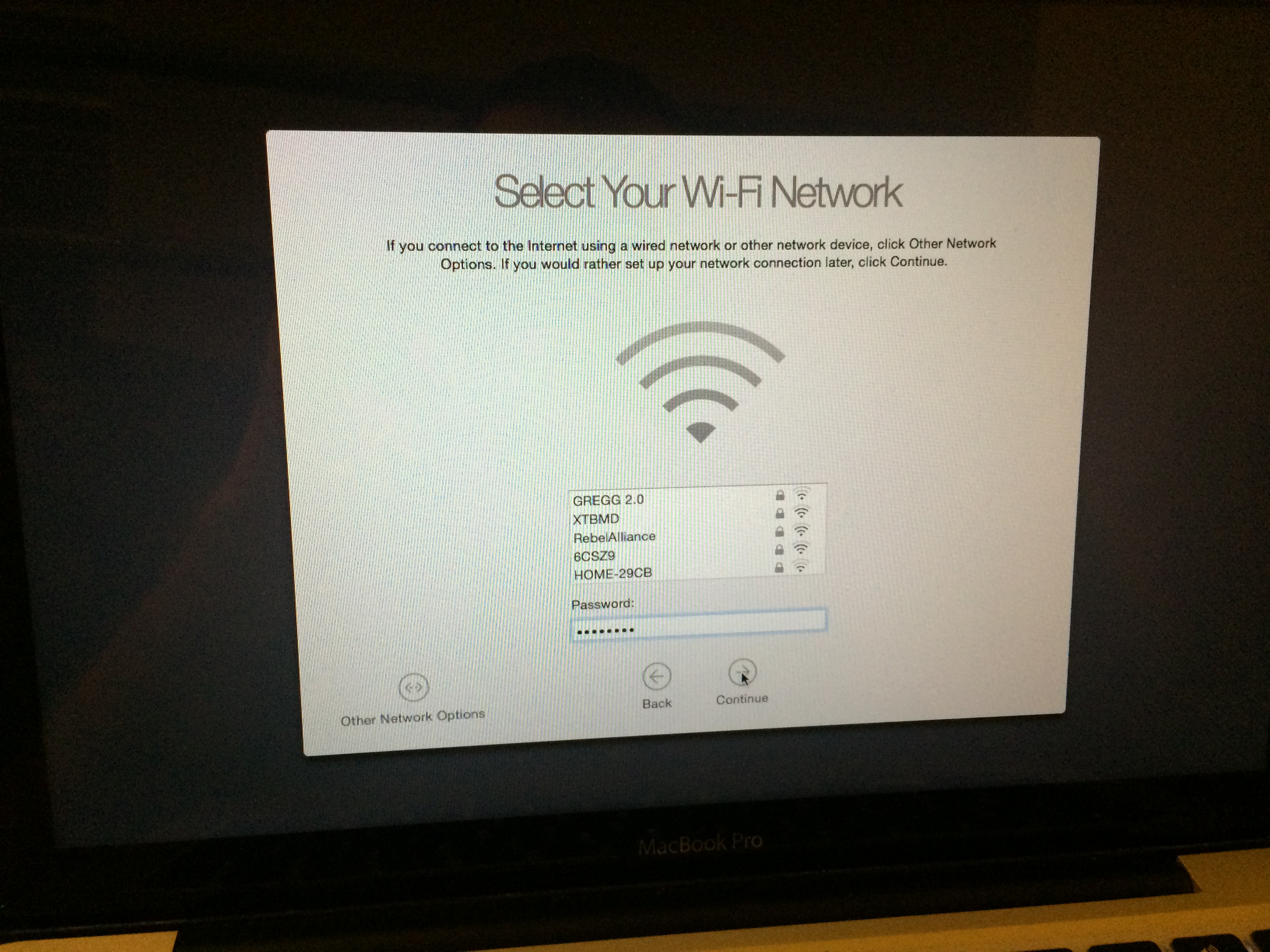
Text all over the system seems tiny and hard to read. I don't know if they could make it bigger because it would mess with the measurements everywhere. Notifications, Safari bar, they seem so much smaller than before. It really doesn't help that a lot of them are sort of a grey color instead of black. We had a similar problem in iOS 7, and they listened, so I figured to see if anyone else felt that there was something wrong here. I'm using a retina, I can't imagine how it is on non-retina screens. 😱
Strange, my experience on a non-Retina screen (MBP 2011) wasn't bad at all. It was, for the most part, easy to read. The font was just more modern, I guess. However, in a few areas, it was a bit hard to read or was misaligned. I'm positive Apple will tweak this during the beta program.
An example of misaligned/weirdly spaced font usage can be seen in the Setup Assistant after installation. See photo - notice how the f and i's are so close together you almost can't see the dot?
That was something I was hoping I could fix in the accessibly settings. I mean, even my MacBook Pro's KEYBOARD is better. 😛
But no really, it's really straining my eyes at just 5 minutes in. I hope this is something that someone figures out how to fix in the Terminal.
I'am not trying to say there that OS X is inferiorto WIN,
but with all honesty, when you boot into virtual WIN7/WIN8 from Mavericks don't you find the fonts a lot more readable as if suddenly the resolution of the screen drastically increased?
Well Apple now thankfully fixed these scrappy/blurry fonts with dirty edges and made them how they should be, but I guess there will be always someone who is whining about everything 🙂
My statement doesn't apply to those with retina screens, but we have minority of them here.
Well Apple now thankfully fixed these scrappy/blurry fonts with dirty edges and made them how they should be, but I guess there will be always someone who is whining about everything 🙂
Those "dirty" edges helped for text to stand out more. Really, the only thing they have to do is give us the bolder Helvetica option and it'll be OK.
I miss Lucida Grande already.
This obsession with Helvetica is starting to annoy me. It looks fine on a mobile device, but it just doesn't fit well at all on OS X. It looks so unprofessional and ugly, especially at smaller sizes. Lucida Grande should have stayed put but Apple is trying to jam this fusion of OS X and iOS down our throats.
It's just a horrible font for a desktop operating system. It actually makes me consider setting up a dual boot with Windows, it's that bad.
Lucida Grande is one of the two or three most legible fonts I can think of; it continues to set OS X apart from everything else for sheer class and comfort. Helvetica Neue is a font for graphic artists who don't read; it looks pretty as a display font and that's about it.
I'm in the same boat as the OP. My vision is at least 20/20 but I do find the visuals now are harder on the eyes, whether it's the fonts, the fonts' background, other visual elements... I can't quite put my finger on it but I feel my eyes straining more now using 10.10 than 10.9, on the same hardware. Small things like the wifi status on menu bar I can't tell if it's full bars or one. Even Macrumors site itself the fonts are all a bit off.
There are some visual glitches that are obviously not the finished, polished product.